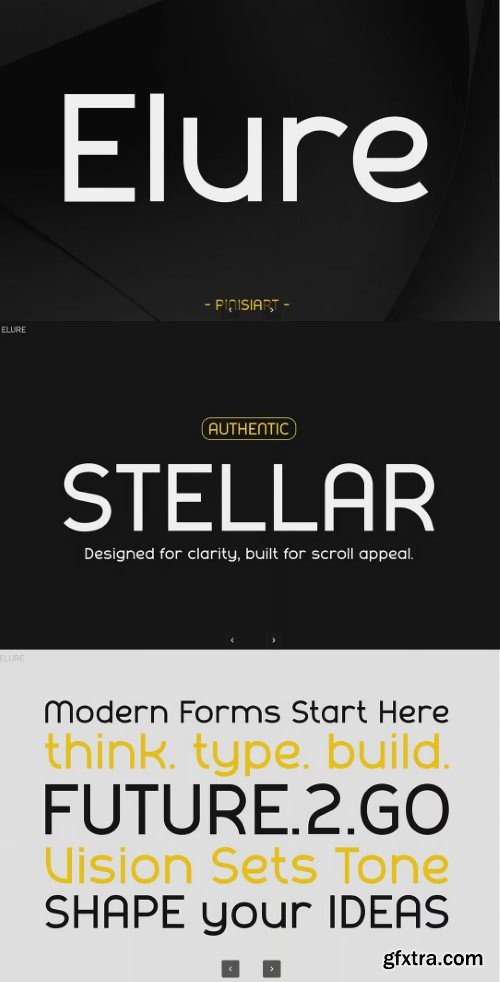
Elure - Modern Font
- Meet Elure, a modern geometric typeface crafted with soft curves, low contrast, and refined balance—designed to bring clear, confident energy to any layout. With a vibe that’s minimal yet expressive, Elure is built for clean branding and sharp, professional design. Whether you're designing for a tech startup, a clothing label, or a creative agency, Elure’s rounded structure and versatile readability make it ideal for logos, social media graphics, packaging, websites, and more.